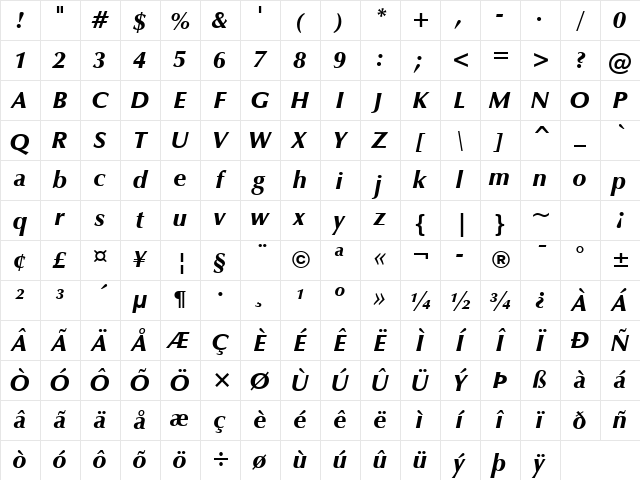
ZapfHumnst Ult BT Ultra Italic
Style: Ultra Italic
Design Context for ZapfHumnst Ult BT
ZapfHumnst Ult BT is a composed and adaptable typeface that performs quietly and consistently across a wide range of design contexts. The slanted form adds forward momentum and visual energy.
Pro Tip: Use ZapfHumnst Ult BT for emphasis, pull quotes, and subheadings where its slanted energy can add rhythm to the layout.